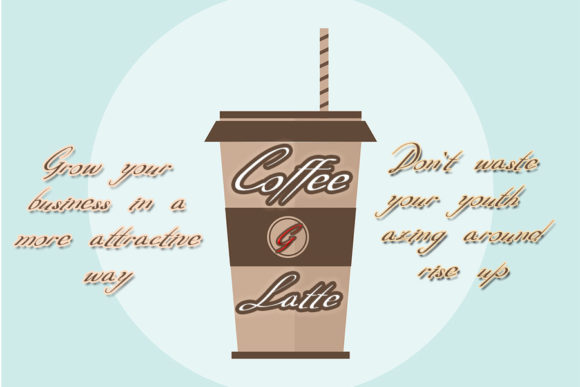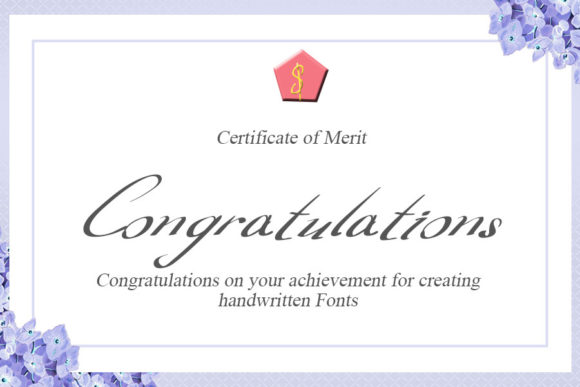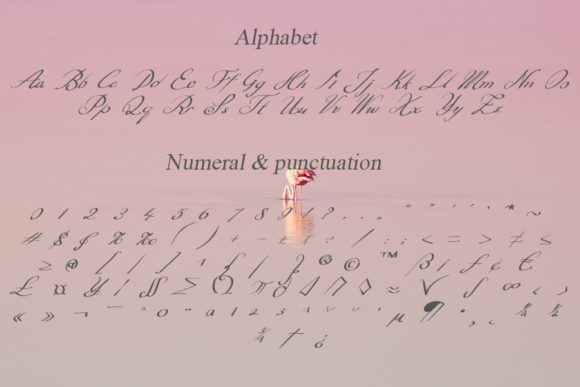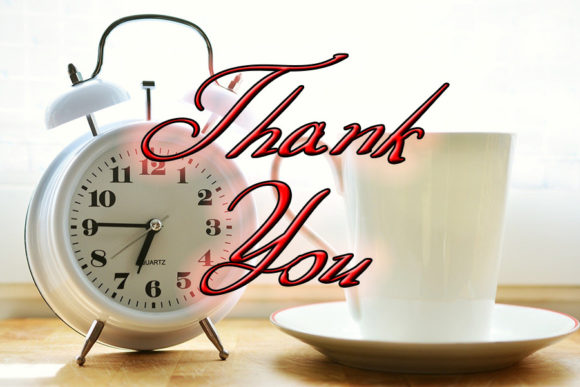
Coffee Latte Font: Elevate Your Designs with Elegance and Sophistication
Are you a designer or crafter looking for a font that exudes class, elegance, and modernity? Look no further than the Coffee Latte Font. This beautiful script font is perfect for creating stunning logos, branding materials, invitations, stationery, wedding designs, social media posts, and more. In this article, we’ll dive into the world of Coffee Latte Font and explore its features, benefits, and uses.
What is Coffee Latte Font?
Coffee Latte Font is a refined script font that boasts a classy, elegant, and modern look. Its sophisticated design makes it an ideal choice for designers and crafters who want to add a touch of luxury to their work. The font’s flowing lines, curves, and swashes create a beautiful, eye-catching effect that’s sure to capture the attention of your audience.
Key Features of Coffee Latte Font
- Elegant and Modern Design: Coffee Latte Font features a sleek, contemporary design that’s perfect for creating modern and sophisticated designs.
- Classy and Refined: The font’s classic lines and curves give it a refined, high-end feel that’s ideal for luxury brands and designs.
- Versatile: Coffee Latte Font can be used for a wide range of design projects, from logos and branding to invitations and social media posts.
- Easy to Read: Despite its elegant design, Coffee Latte Font is easy to read, making it perfect for body text and headlines.
Benefits of Using Coffee Latte Font
So, why should you choose Coffee Latte Font for your design projects? Here are just a few benefits:
- Stand Out from the Crowd: With Coffee Latte Font, you can create designs that stand out from the crowd and make a lasting impression on your audience.
- Elevate Your Brand: The font’s elegant and sophisticated design can help elevate your brand and give it a luxurious feel.
- High-Quality Design: The font is designed with high-quality craftsmanship, ensuring that your designs look professional and polished.
Uses of Coffee Latte Font
Coffee Latte Font is a versatile font that can be used for a wide range of design projects, including:
- Logos and Branding: Create stunning logos and branding materials that exude elegance and sophistication.
- Invitations and Stationery: Design beautiful invitations, stationery, and greeting cards that make a lasting impression.
- Wedding Designs: Use Coffee Latte Font to create stunning wedding designs, including invitations, programs, and decorations.
- Social Media Posts: Elevate your social media posts with elegant and sophisticated typography.
Tips for Using Coffee Latte Font
Here are a few tips for using Coffee Latte Font in your design projects:
- Pair with Other Fonts: Experiment with pairing Coffee Latte Font with other fonts to create a unique and eye-catching effect.
- Use for Headlines and Titles: Use Coffee Latte Font for headlines and titles to add a touch of elegance and sophistication.